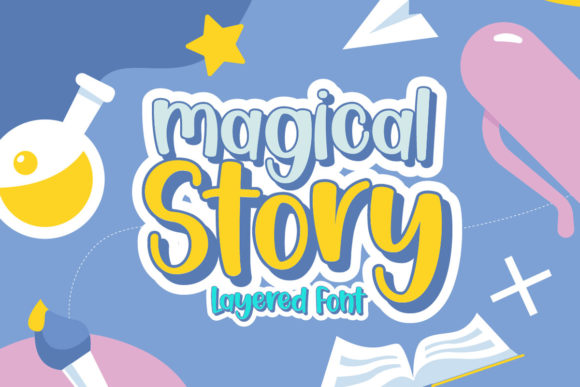
Enter the whimsical world of Magical Story Font, a display font that's bursting with charm and personality. This enchanting font is the perfect choice for adding a touch of magic to your creative projects.
Picture this: a playful and vivacious font that dances across your screen, captivating your audience with its whimsical charm. Magical Story Font is a symphony of curves and loops, reminiscent of a child's playful handwriting. Its jolly and bubbly nature will add a touch of whimsy and delight to any project, making it an instant favorite among designers and creative enthusiasts.
Unleash your creativity and let Magical Story Font transport you to a world of imagination. Whether you're designing children's games, crafting cartoon-inspired masterpieces, or simply adding a touch of whimsy to your projects, this font is sure to leave a lasting impression. It's the perfect choice for creating logos, posters, social media posts, and any other design that calls for a touch of magic.
With Magical Story Font, you'll have the power to evoke emotions and create designs that resonate with your audience. Its charismatic curves and cheerful demeanor will capture their attention and leave them enchanted. So dive into the world of Magical Story Font and let your creativity soar!